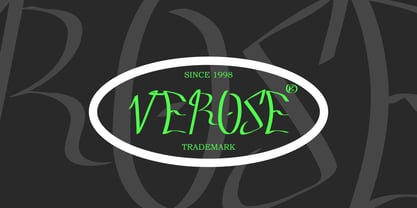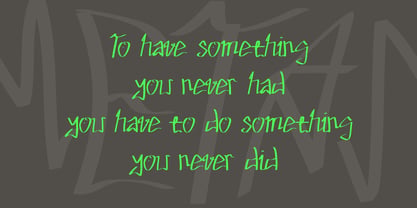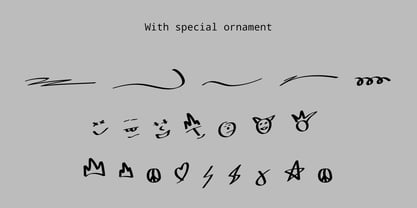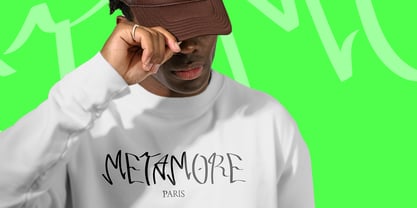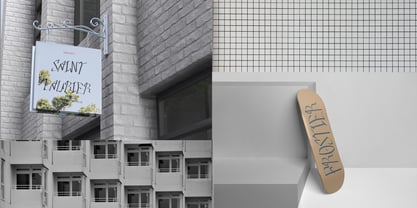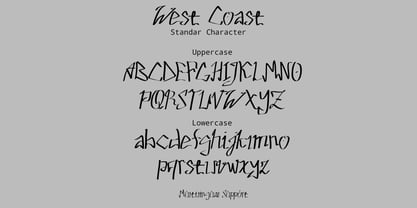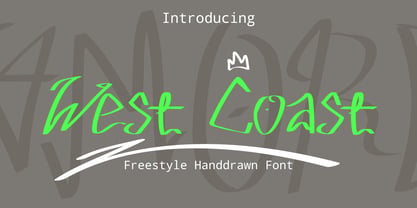
West Coast
WEST COAST is a bold and energetic handwritten font inspired by the freedom, creativity, and laid-back spirit of the West Coast lifestyle. With its natural brush strokes, authentic letterforms, and effortless flow, this typeface delivers a strong personality that instantly captures attention.
Designed to bring a fresh and expressive feel to any project, WEST COAST combines casual handwritten charm with a modern urban attitude. Its dynamic appearance makes it perfect for creating eye-catching logos, branding, apparel designs, product packaging, social media graphics, posters, album covers, and merchandise.
Whether you're building a streetwear brand, designing a lifestyle campaign, or creating standout visual content, WEST COAST adds a distinctive handcrafted touch that feels confident, stylish, and genuine.
Perfect for:
• Logos & Branding
• Streetwear & Apparel
• Posters & Headlines
• Packaging Design
• Social Media Content
• Merchandise
• Album Covers
• Lifestyle & Creative Projects
Bring authentic energy and bold character to your designs with WEST COAST.